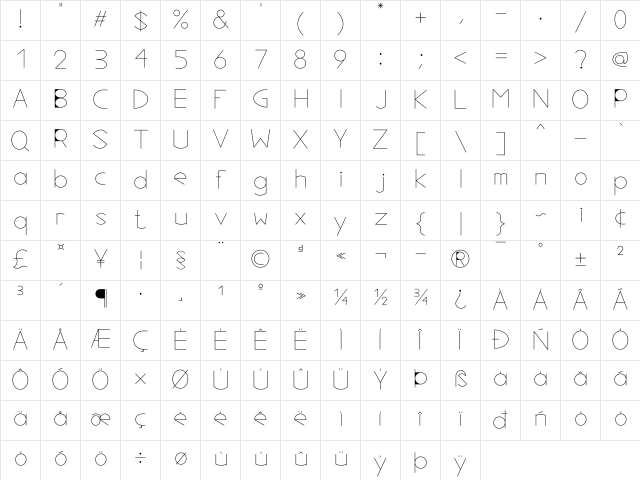
Alex-P2 Extra-Light
| Designer | Alex P |
Alex-P2 is a composed and adaptable typeface that performs quietly and consistently across a wide range of design contexts. The delicate stroke weight brings airiness and refinement to layouts.